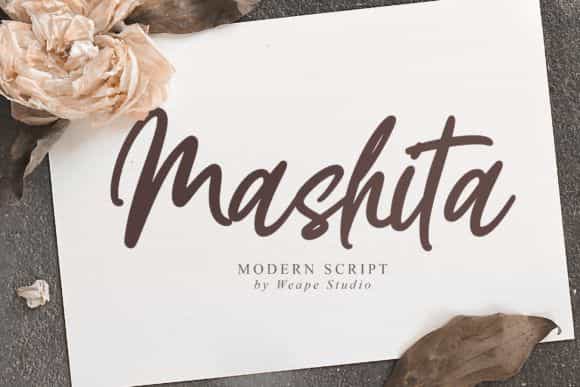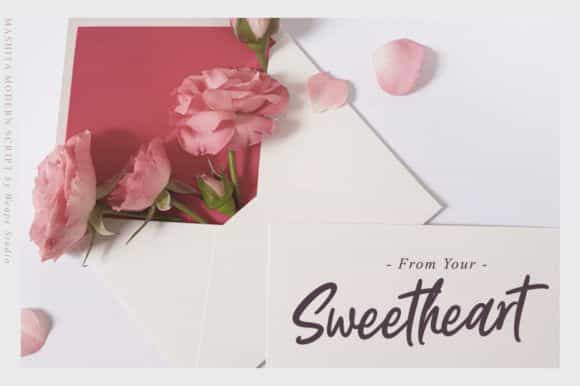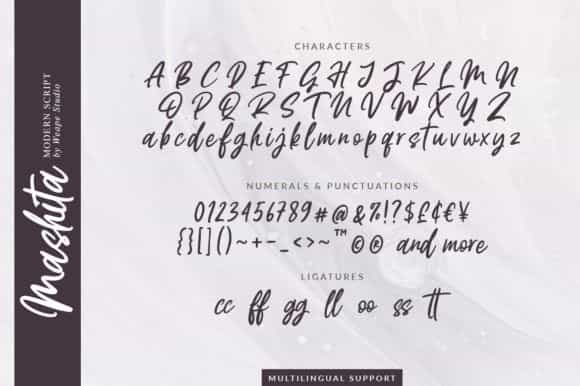
Mashita is a script font that adds beauty to invitations greeting cards, brand materials quotes posters. Perfect for making your designs pop with its charming appeal.